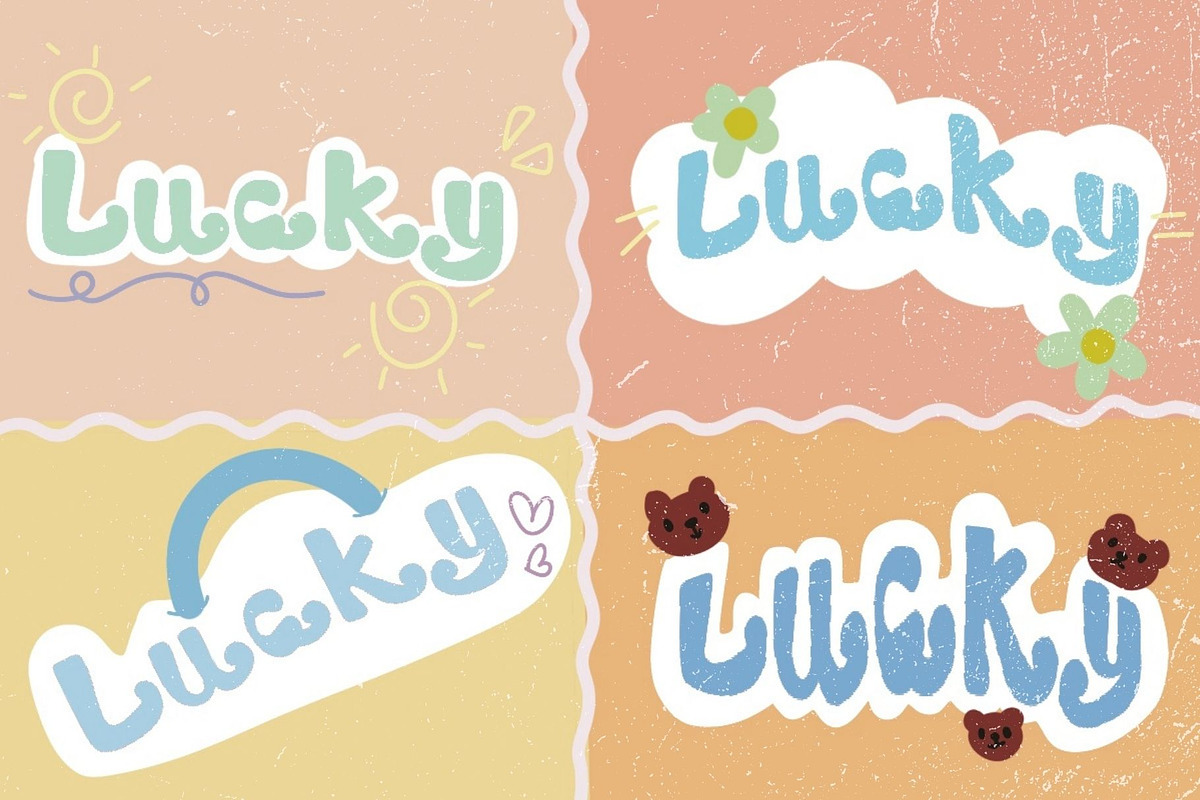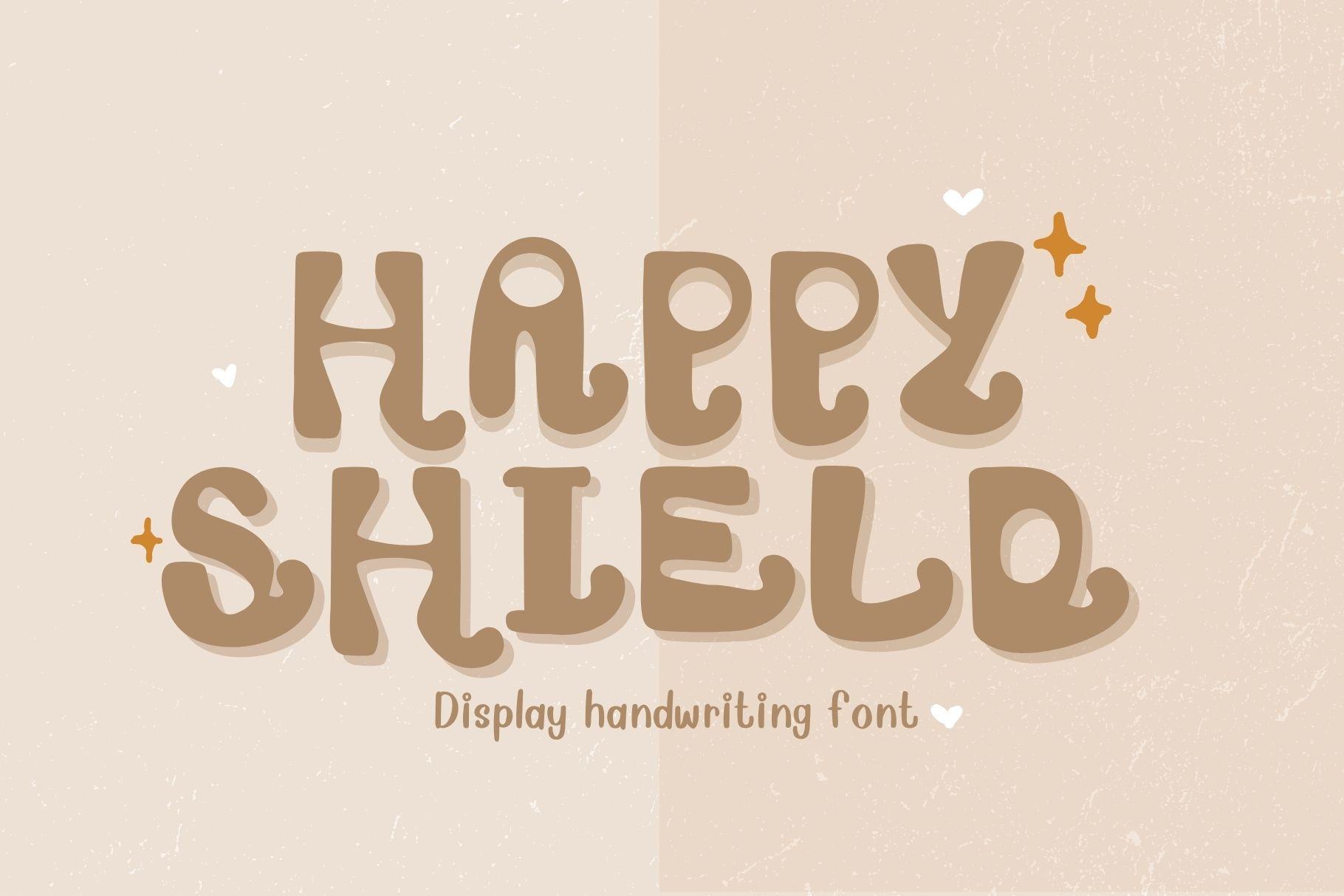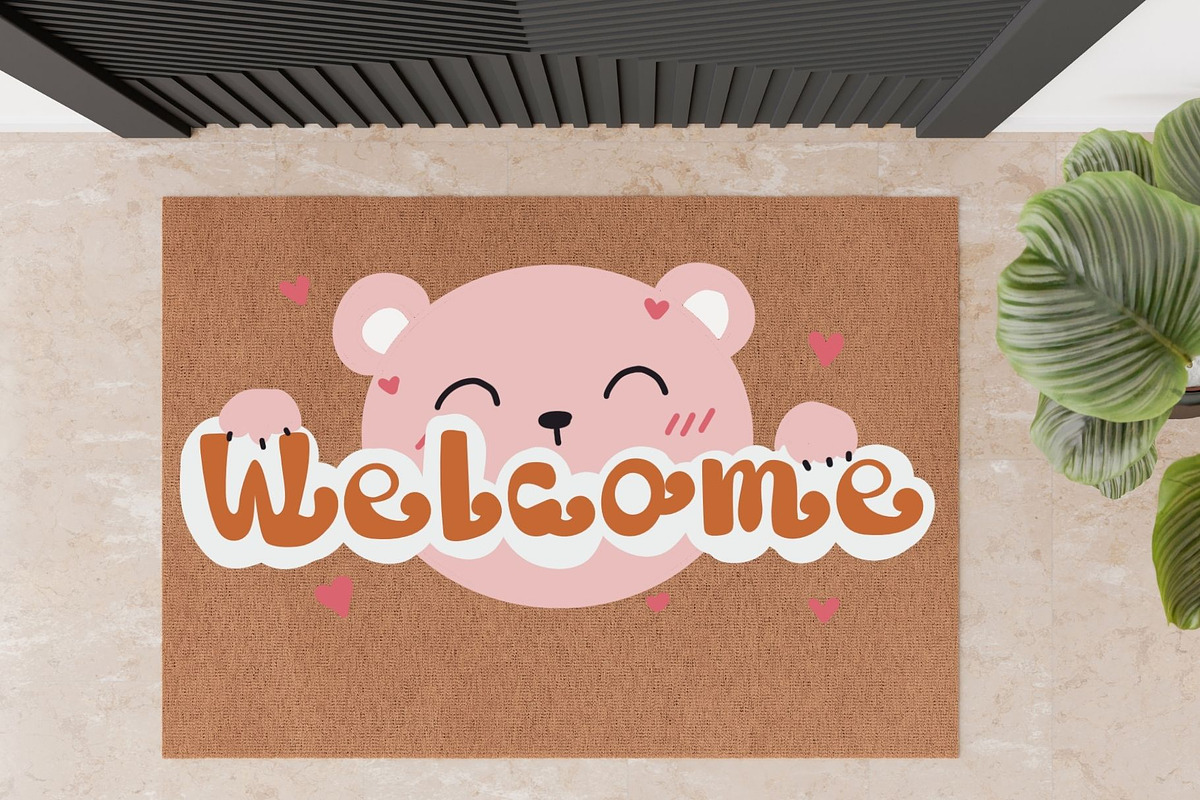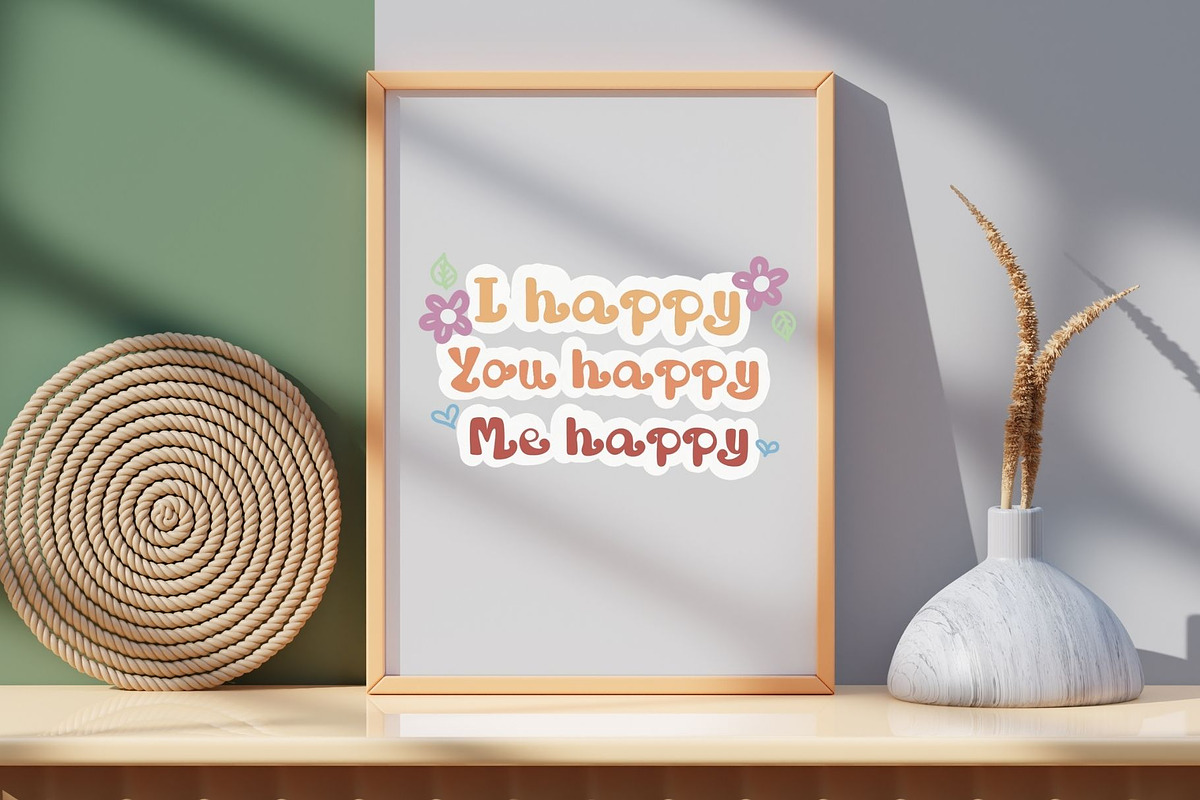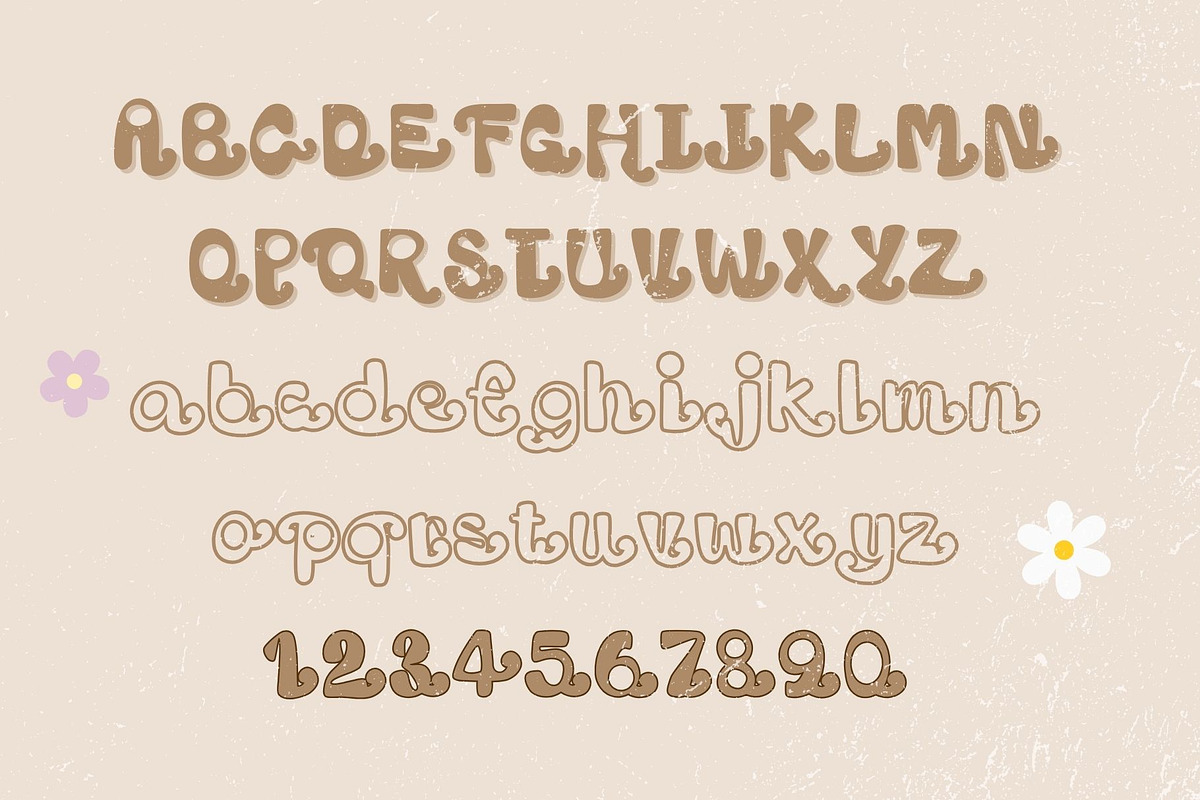
Happy shield font
Happy shield is a display handwriting font. ❤️It's a cute and stylish font that you can use for your design projects, such as designing bags, clothing, glassware, hats, and more. It will make your work look fresh and intriguing. Font Include :